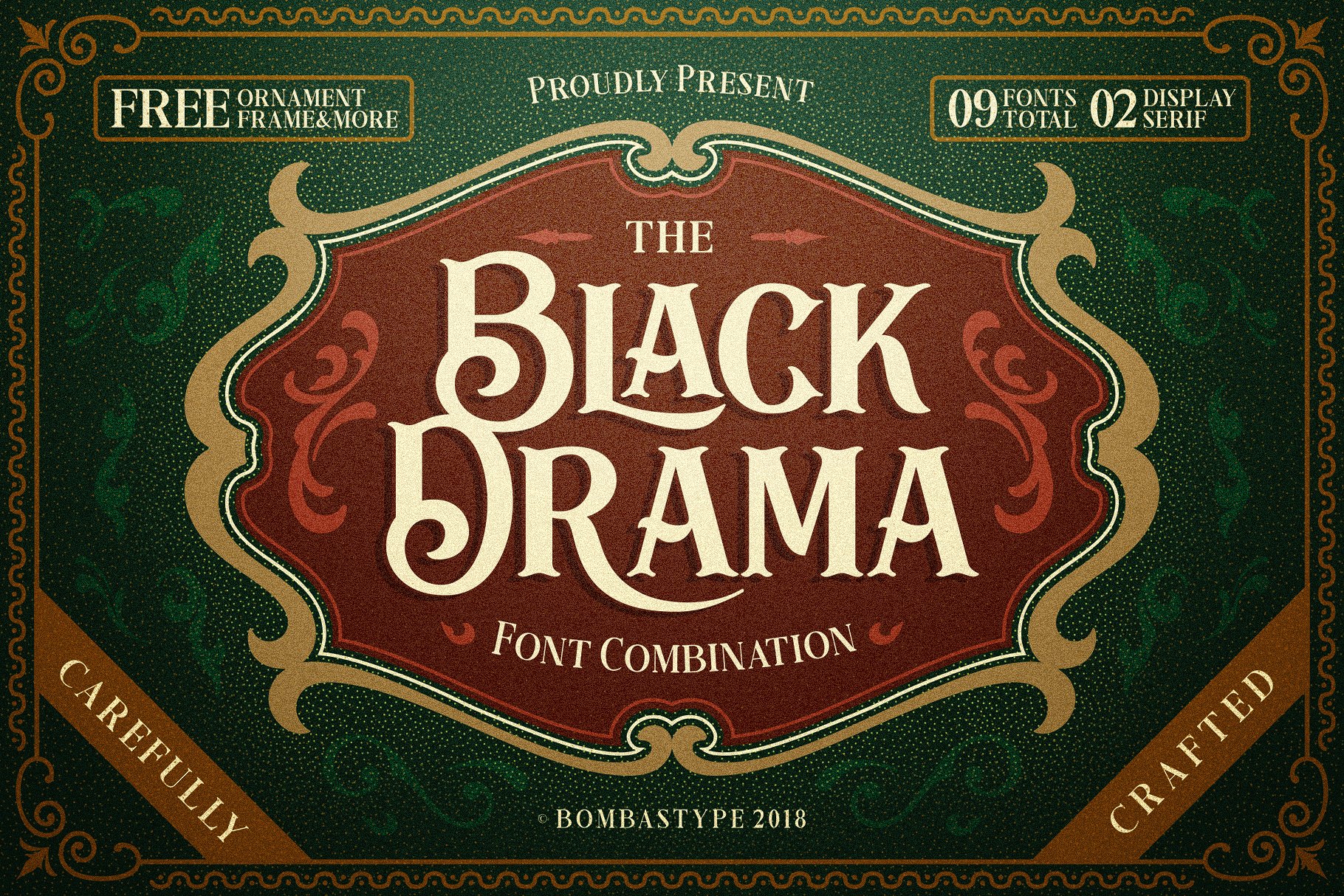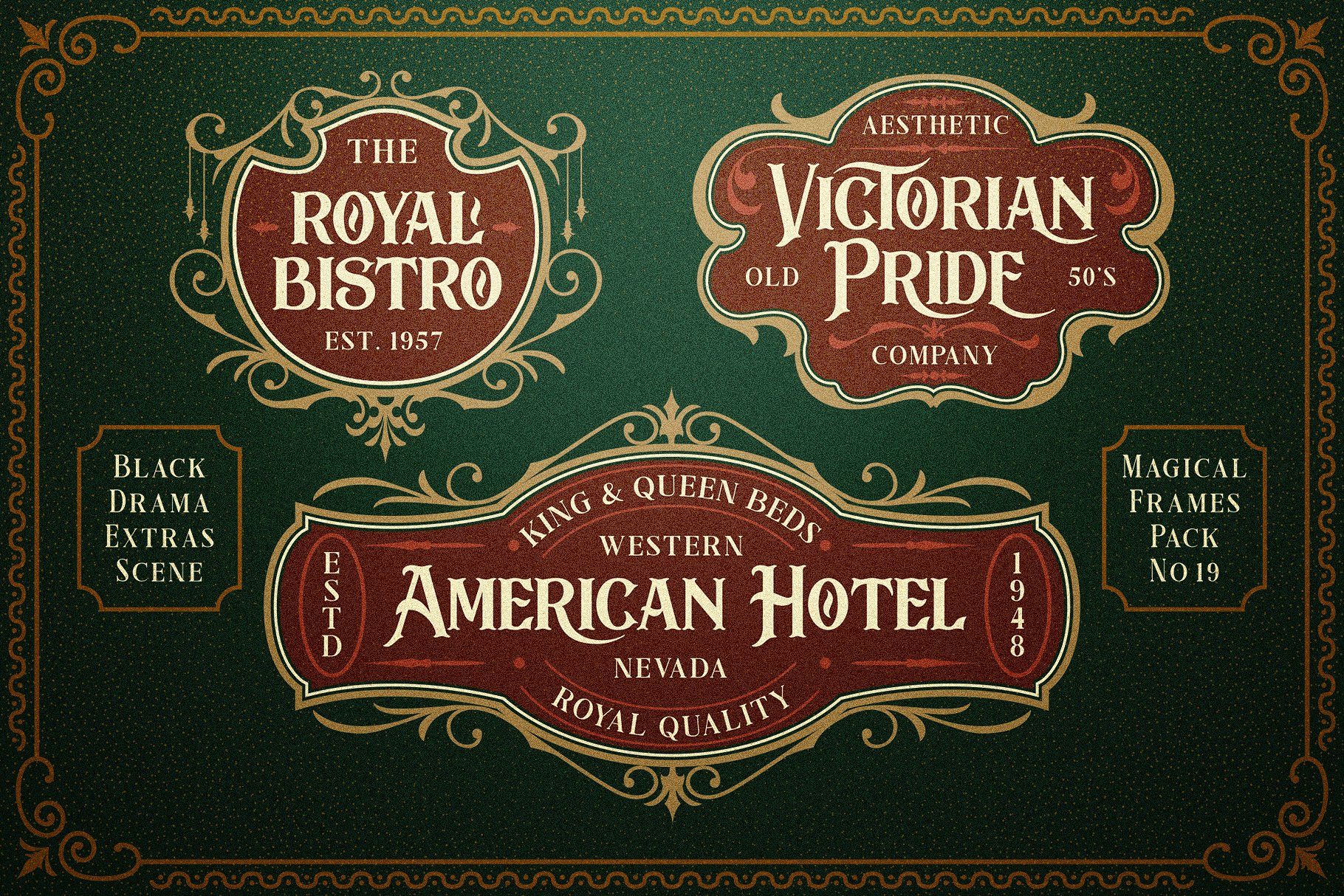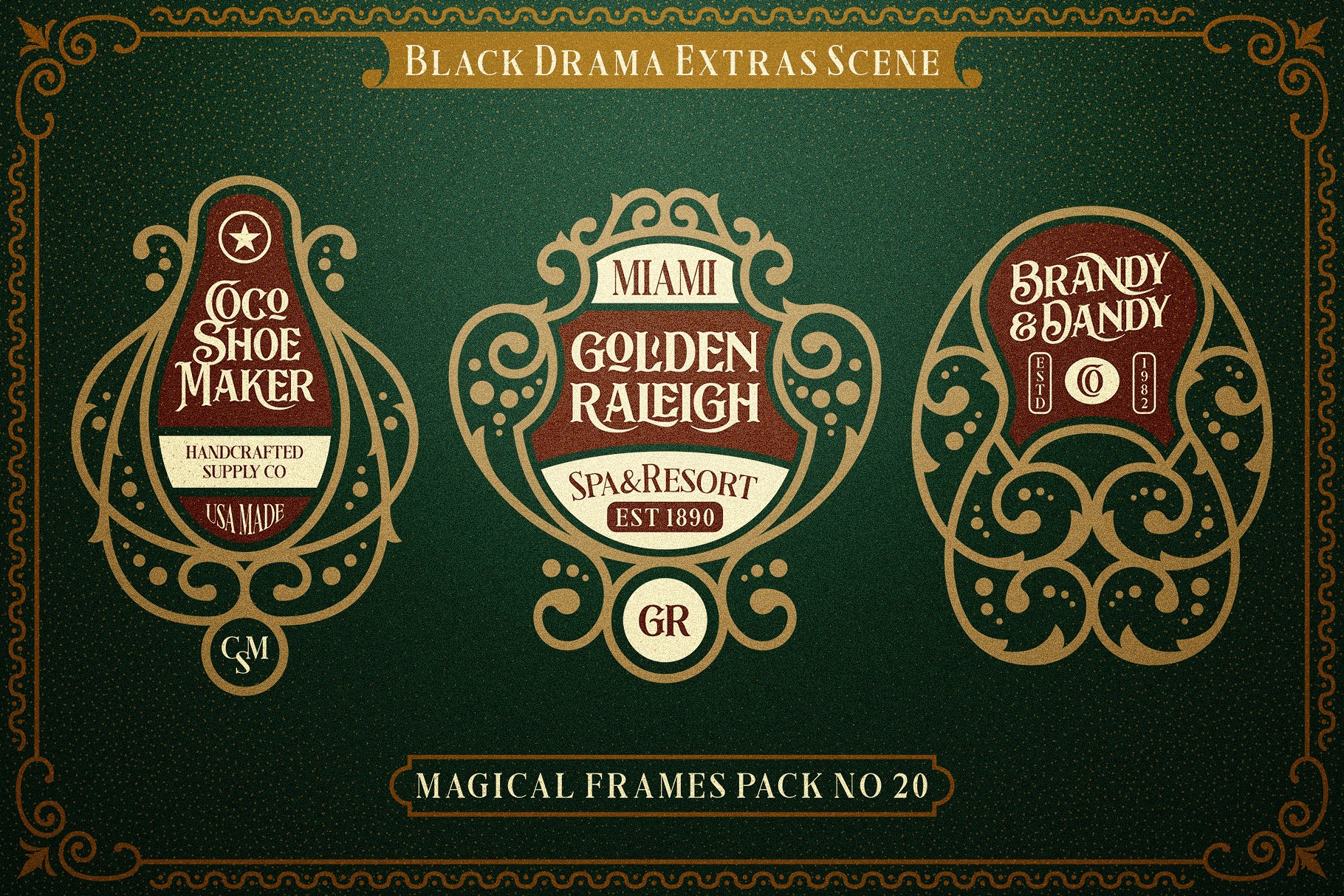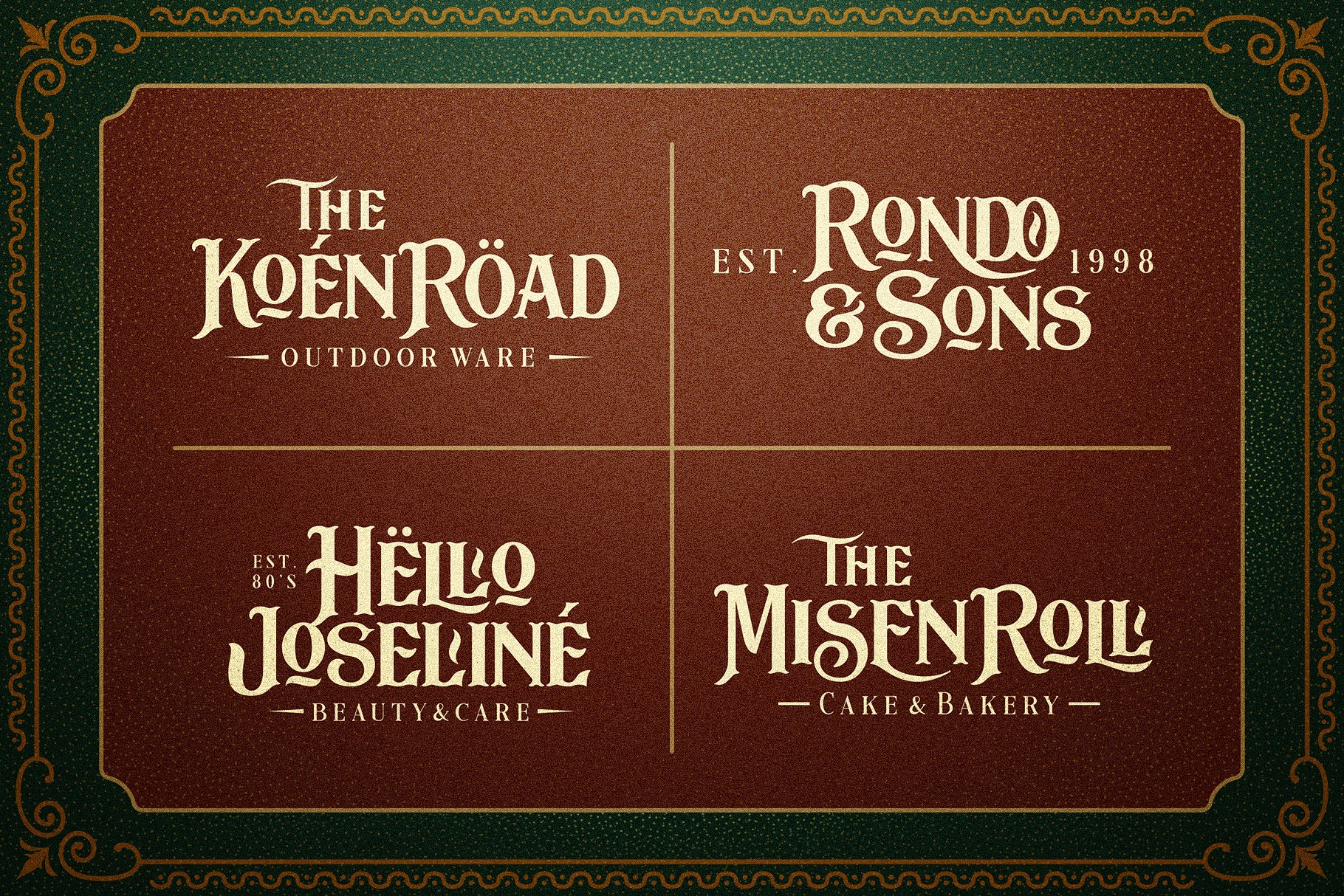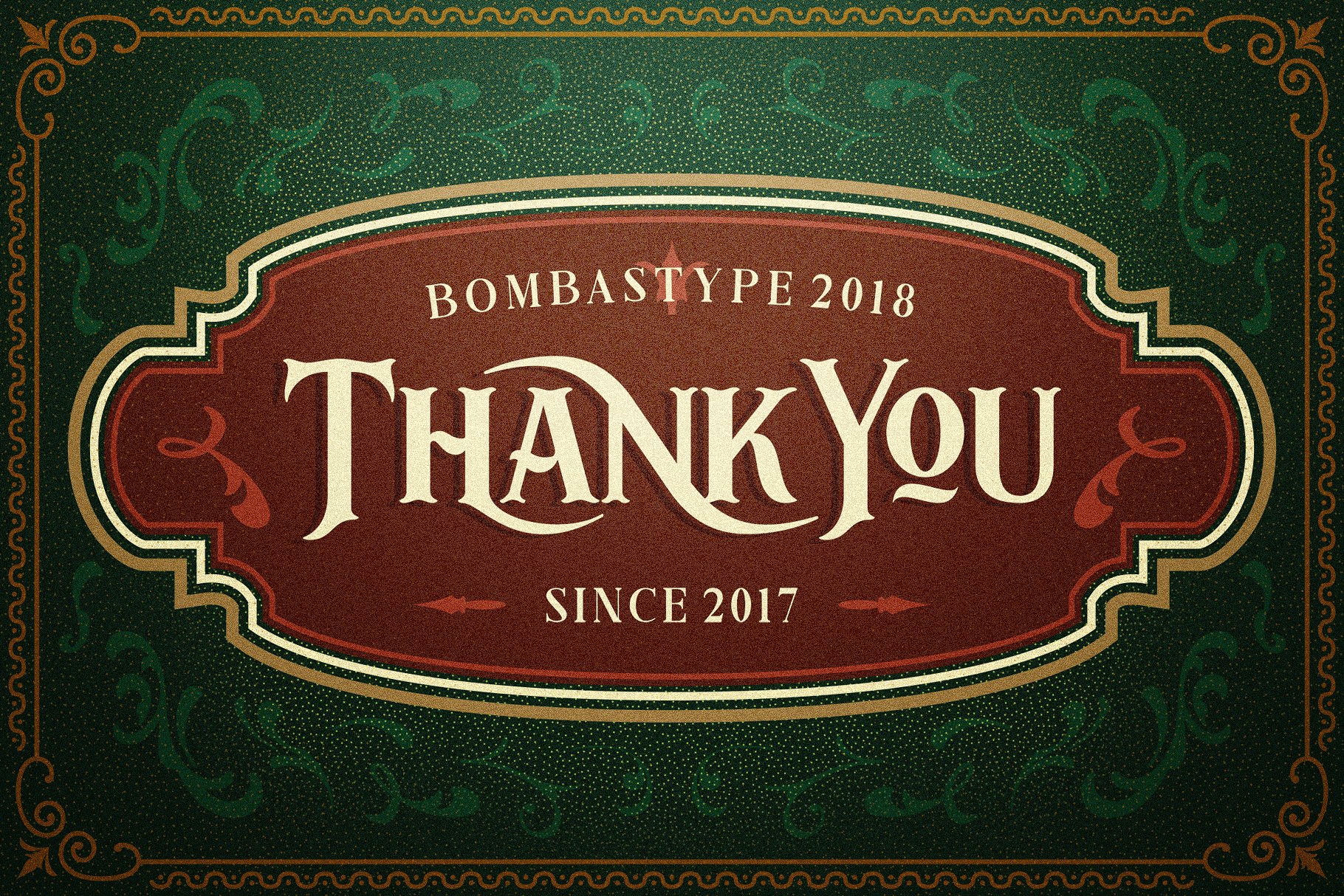
The right typeface can add some real drama to your designs. This fabulous font family created by Bombas Type features 9 beautifully elegant typefaces that are a wonderful mix of antique and retro styles. Packed with loads of extras including frames and vectors, this is one deal you can’t afford to miss. Download the demo version below and check here the pro version. Free for personal use!